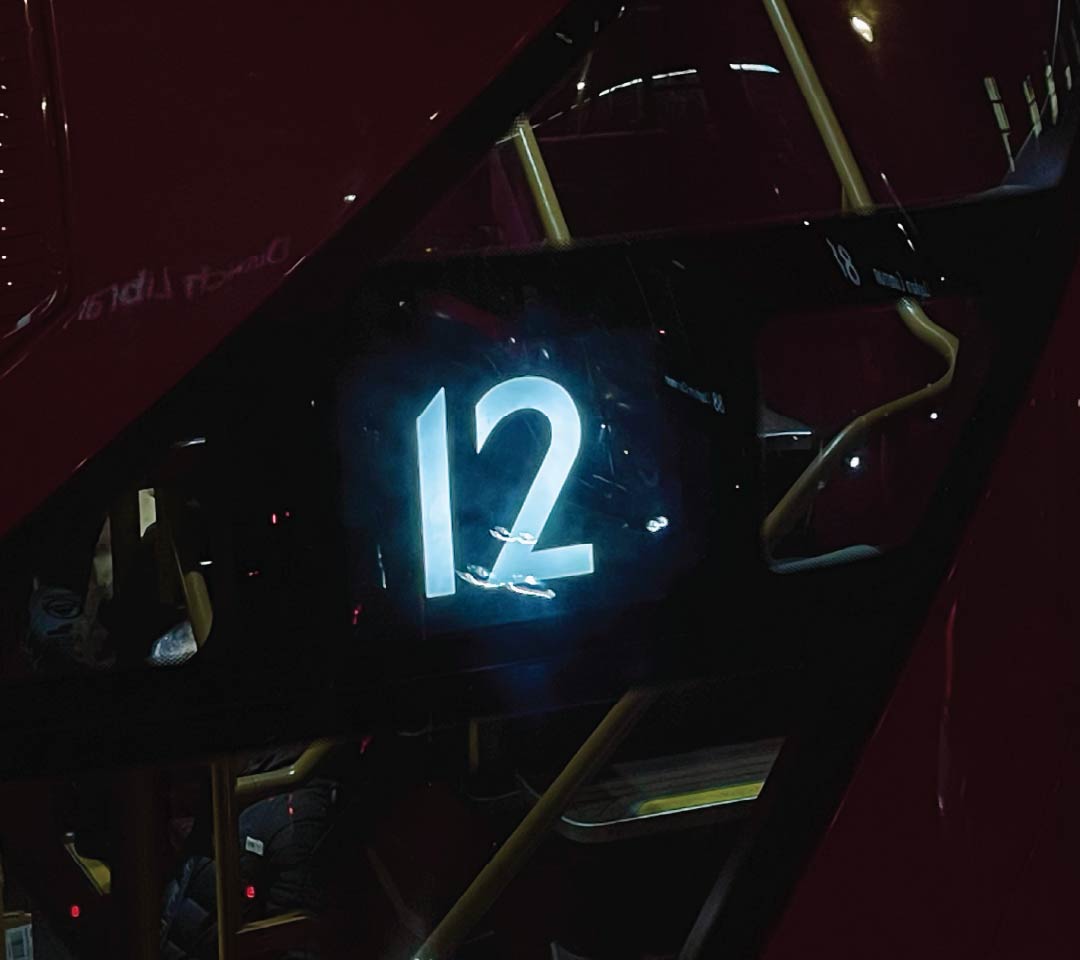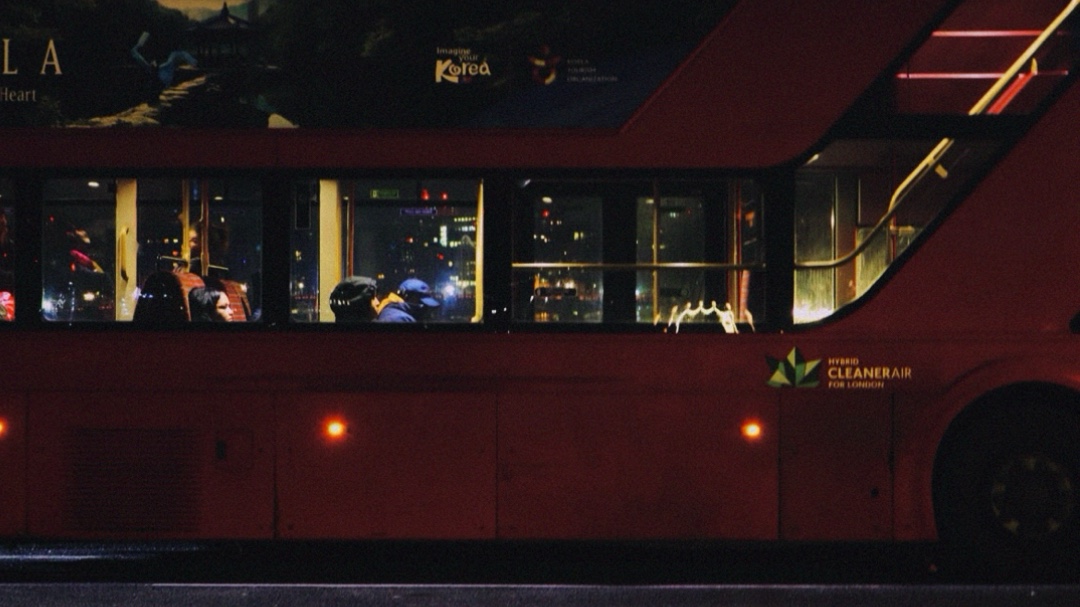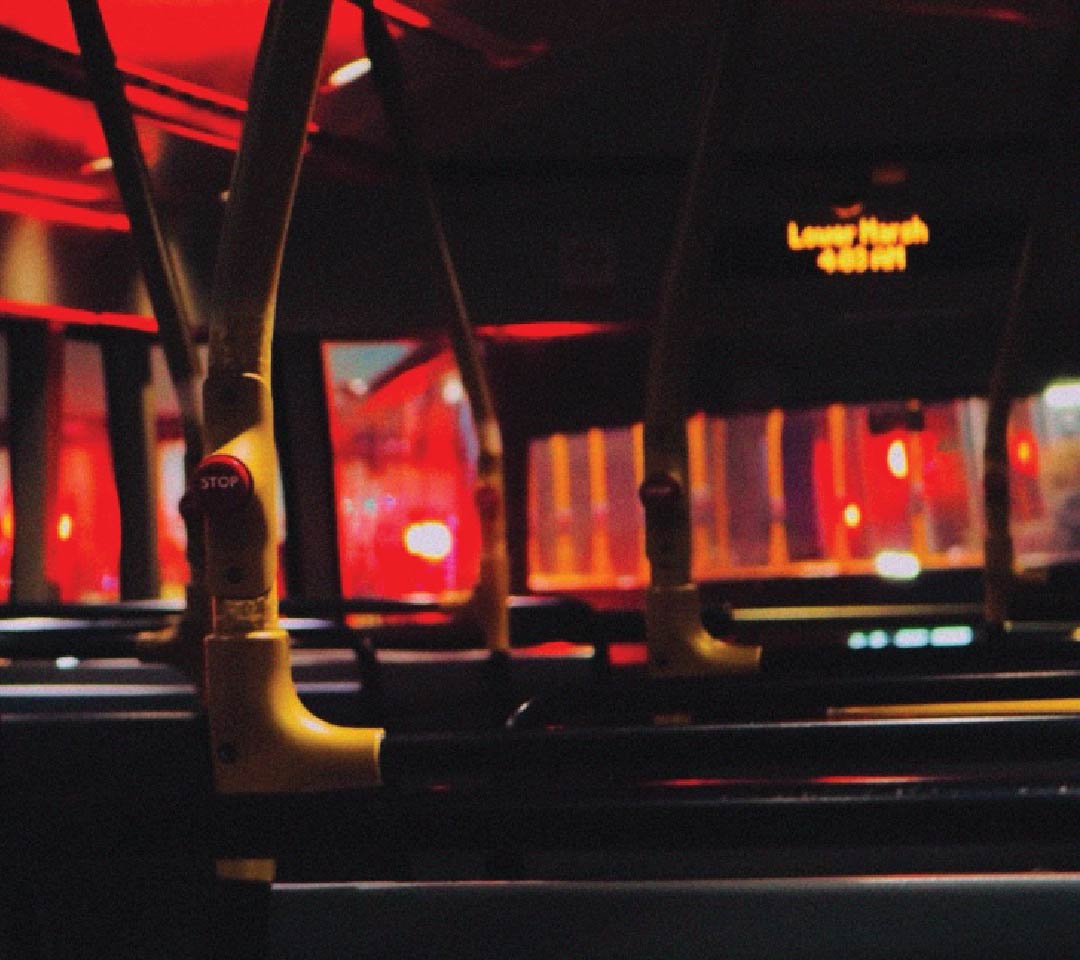
The typeface is based on the iconic New Routemaster, the current model used on Bus Route 12 as it travels through Peckham and Camberwell. Designed to feel familiar and approachable, the letterforms are grounded in contemporary sans-serif structures, with softened corners and the shifts in stroke weight reference the Routemaster's window panel design in order to echo the bus's smooth surfaces and circular detailing while also capturing the sense of movement and daily routine that defines its journey.